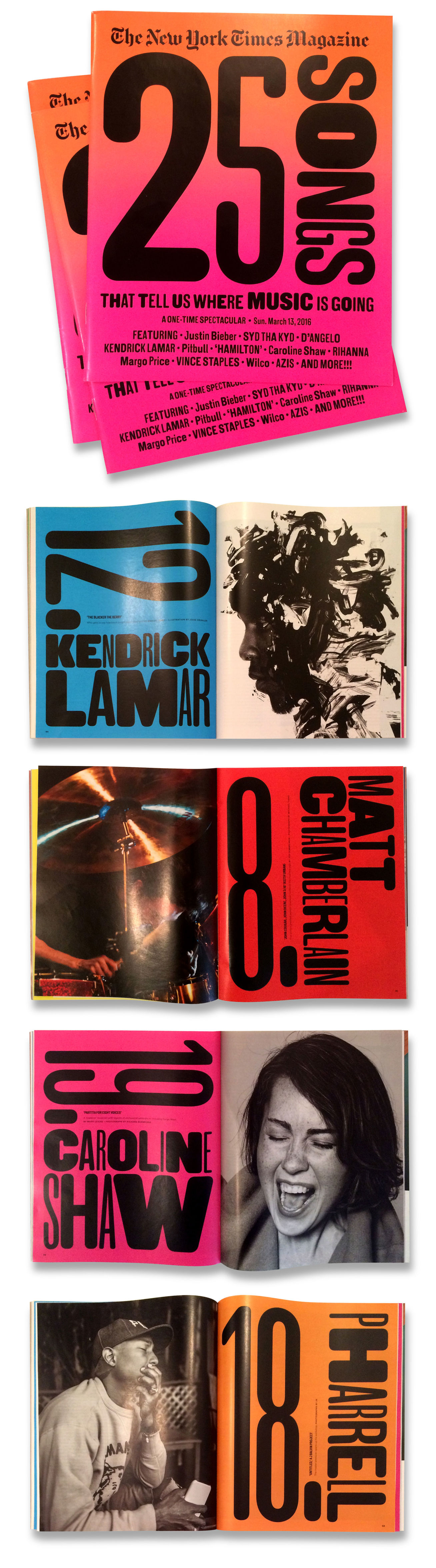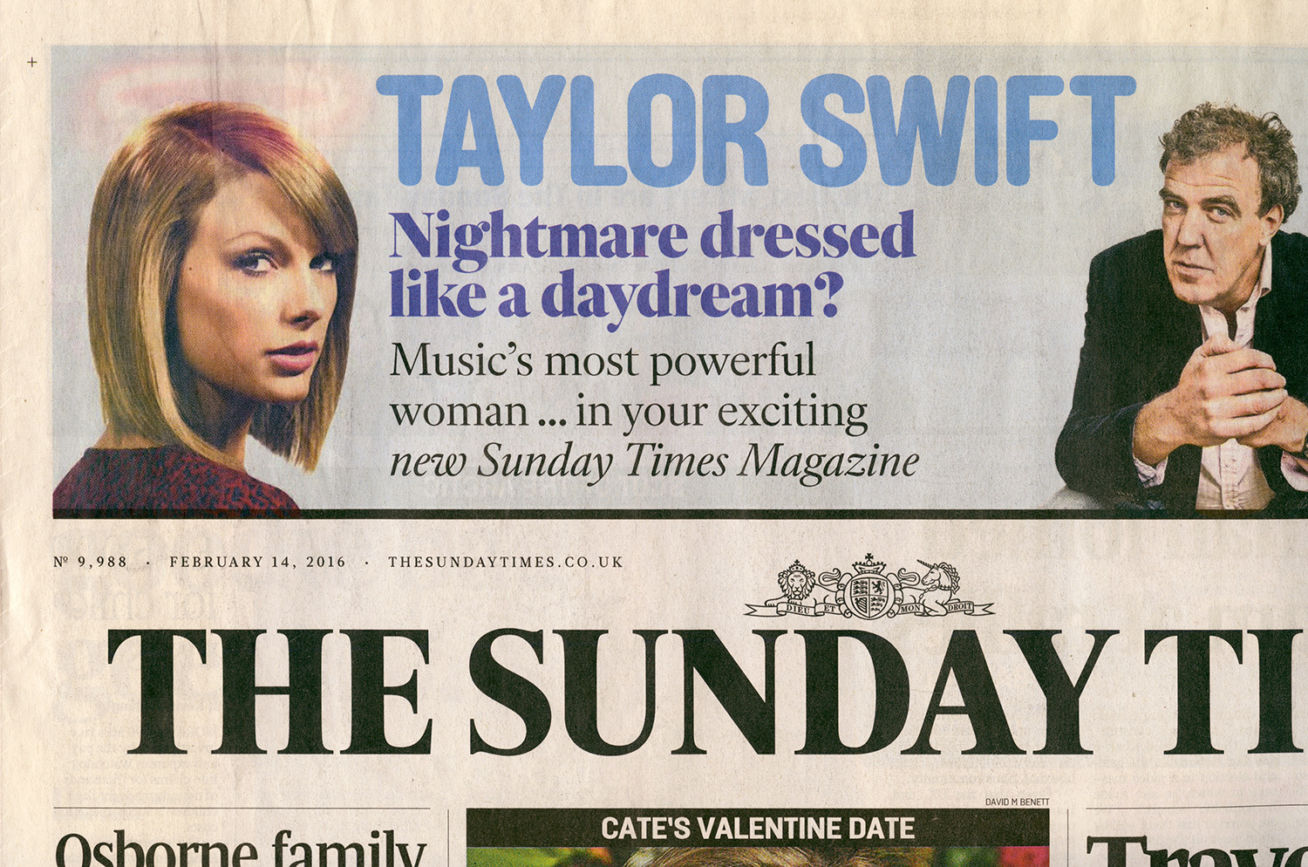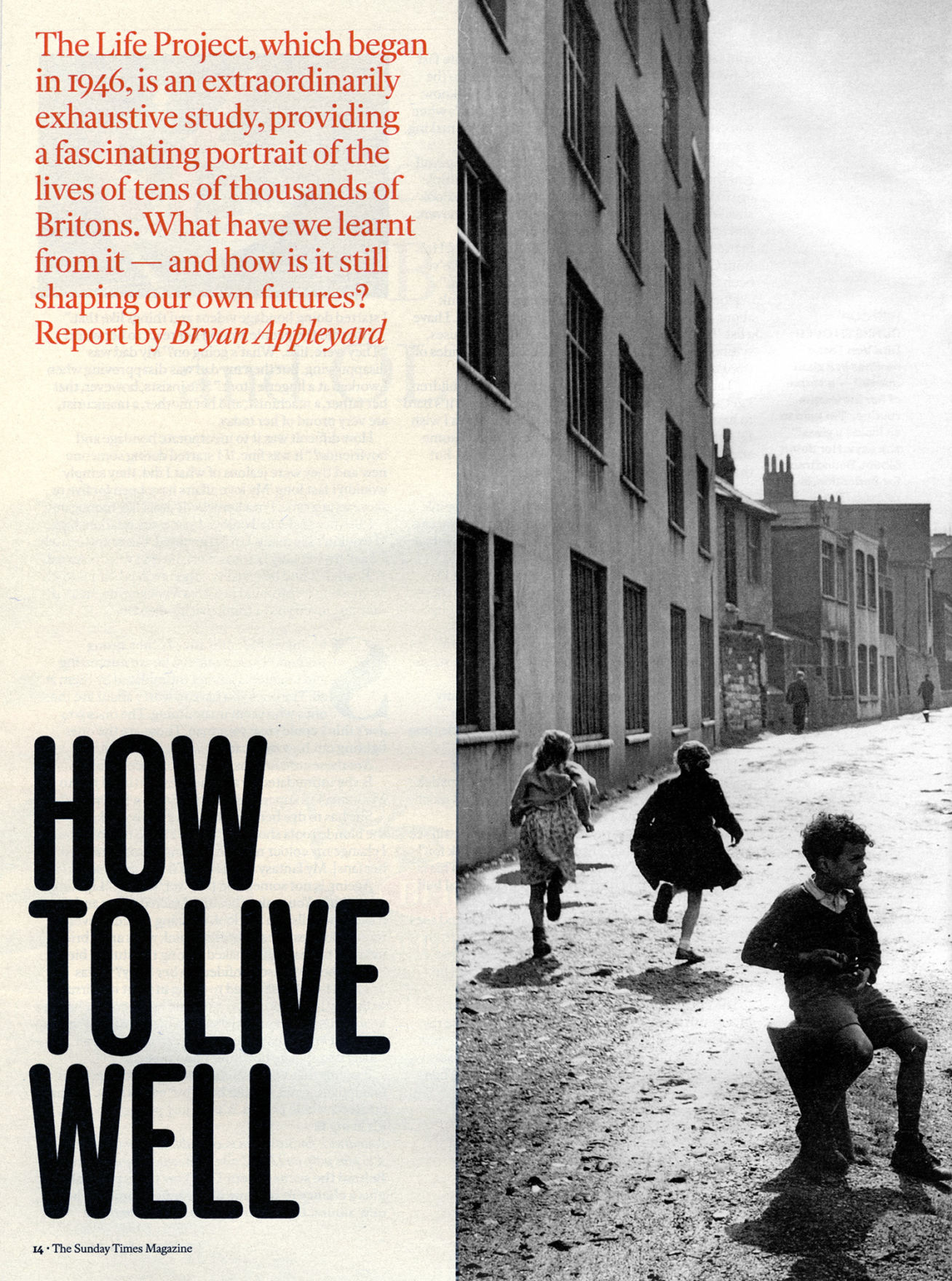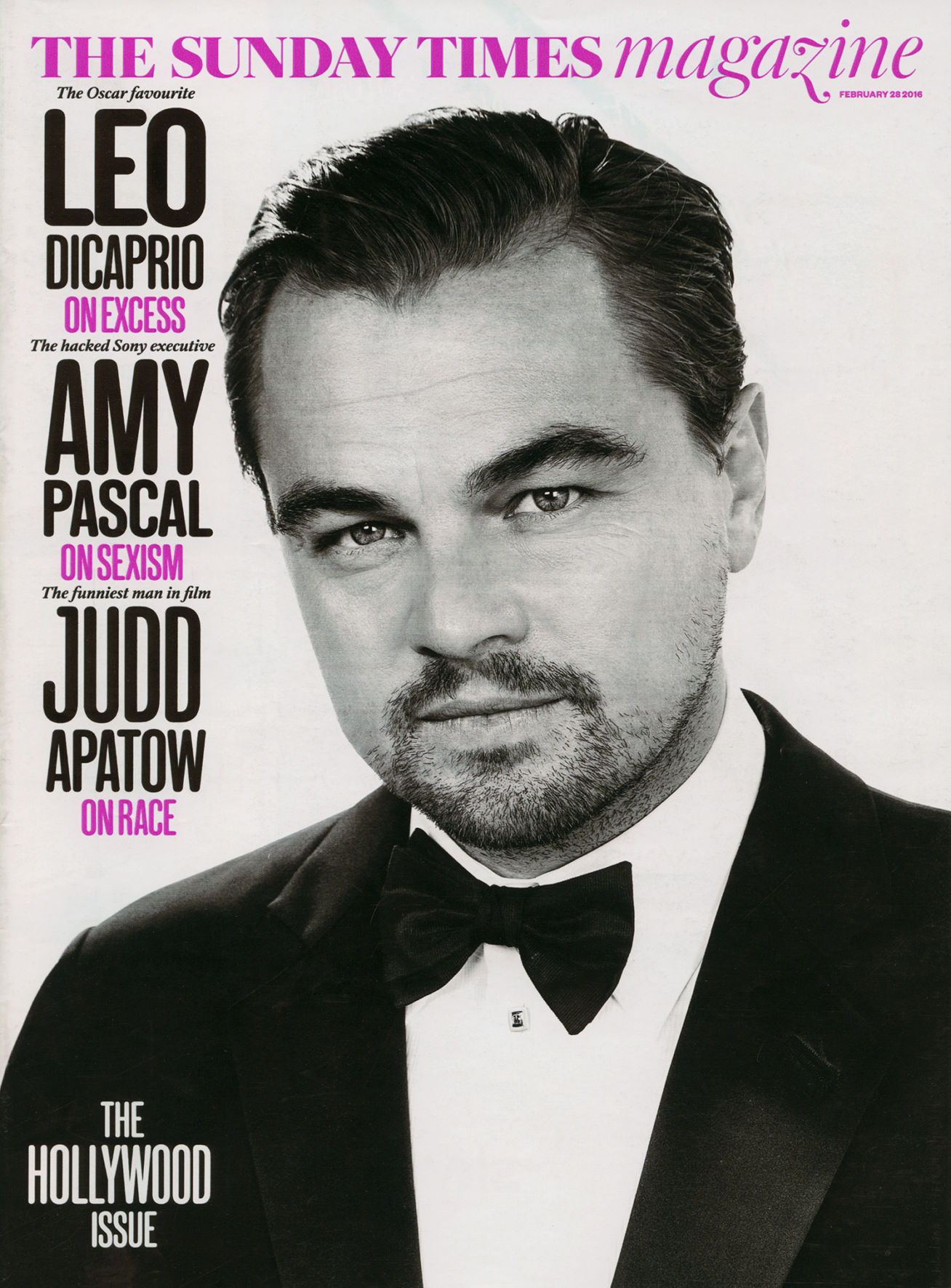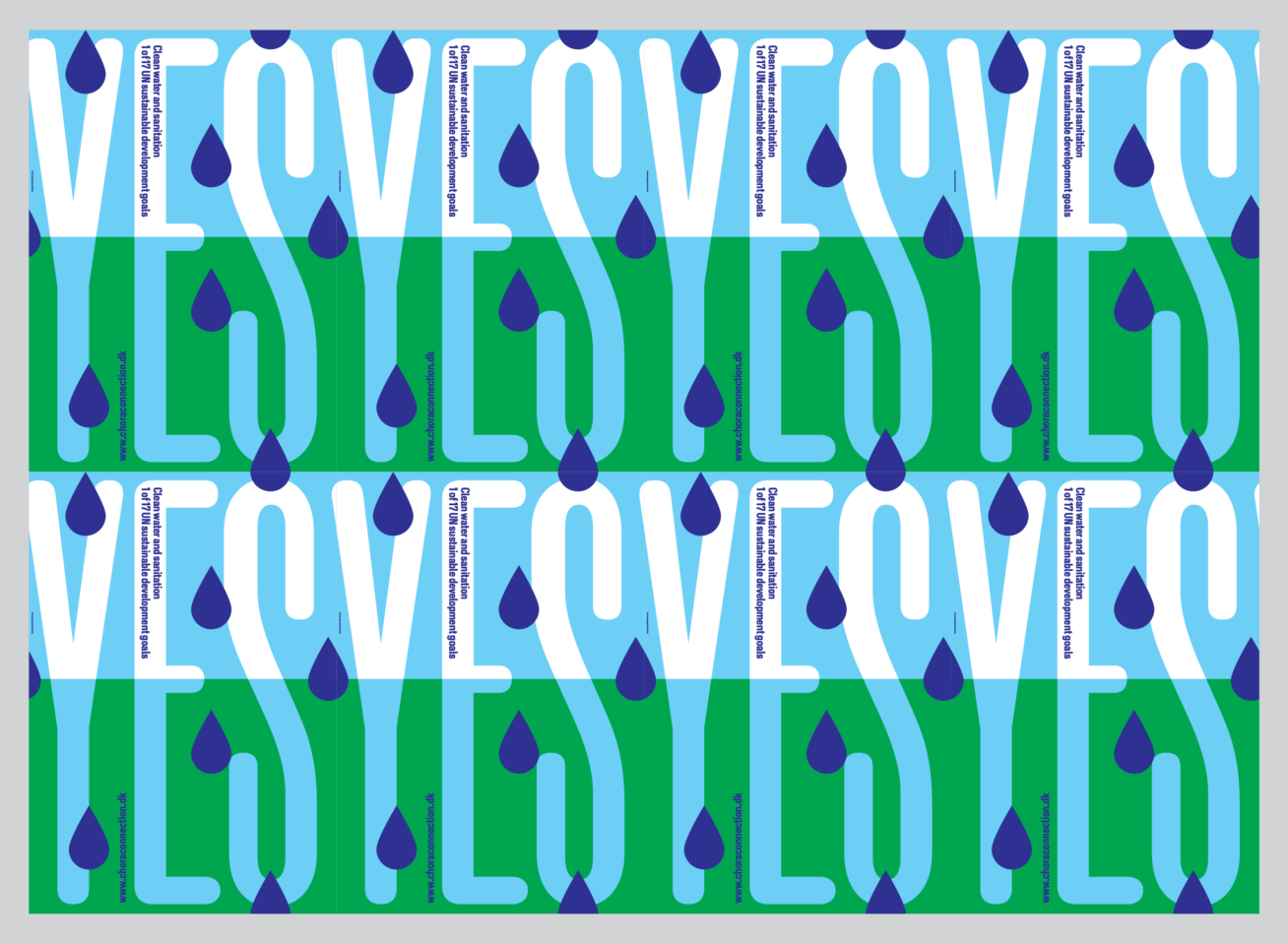
New Grotesk Round
7 Widths. ADVANCED
New Grotesk Round is the perfect counterpart to our typeface New Grotesk Square. Built on the same model, the fonts share proportions, systematic weight grading and optical contrast.
Image credit: Design by The New York Times Magazine’s deputy art director Jason Sfetko. Read more here.
The Sunday Times Newspaper. Top banner announcing the redesign of their magazine by Simon Esterson, whom we worked closely with to design a custom, high contrast version of our Register* typeface for display use in the magazine.
The Sunday Times Magazine cover. February 14, 2016. New Grotesk Round typeface for cover headline. A2-TYPE also designed the masthead and display Italic font (custom version of our Register* font) above. Taylor Swift photo by:
The Sunday Times Magazine. Detail from spread using New Grotesk Round typeface . February 2016. Serif typeface: Register*
The Sunday Times Magazine cover. The Hollywood Issue. February 28, 2016. New Grotesk Round typeface for cover headline. A2-TYPE also designed the masthead and display Italic font (custom version of our Register* font) above. Taylor Swift photo by: